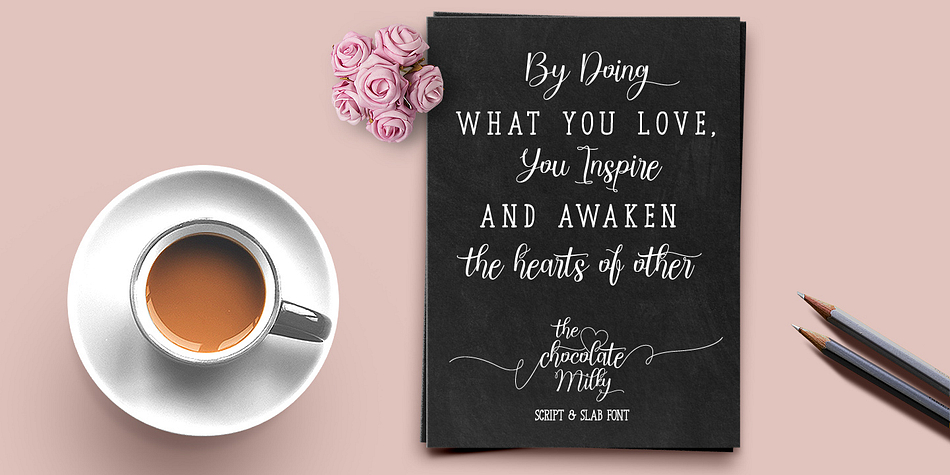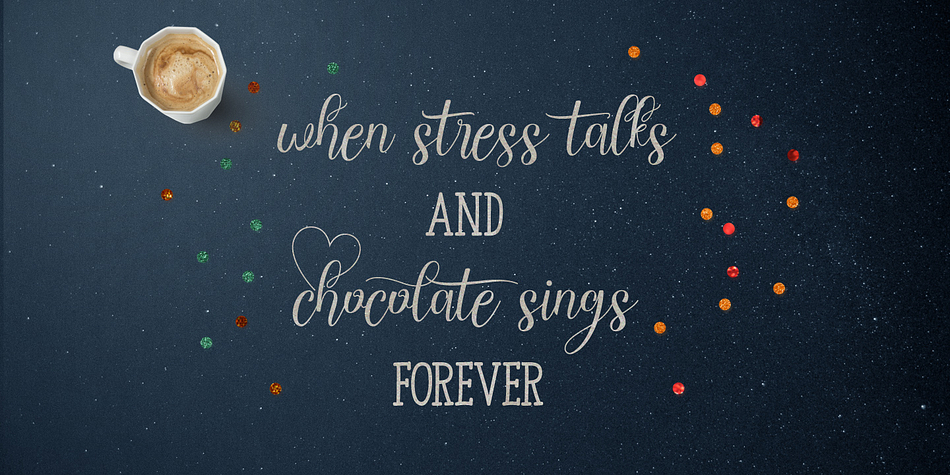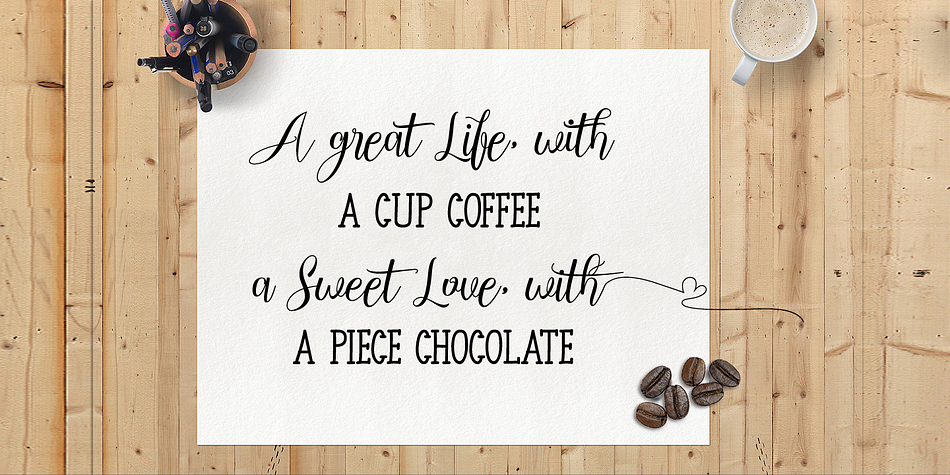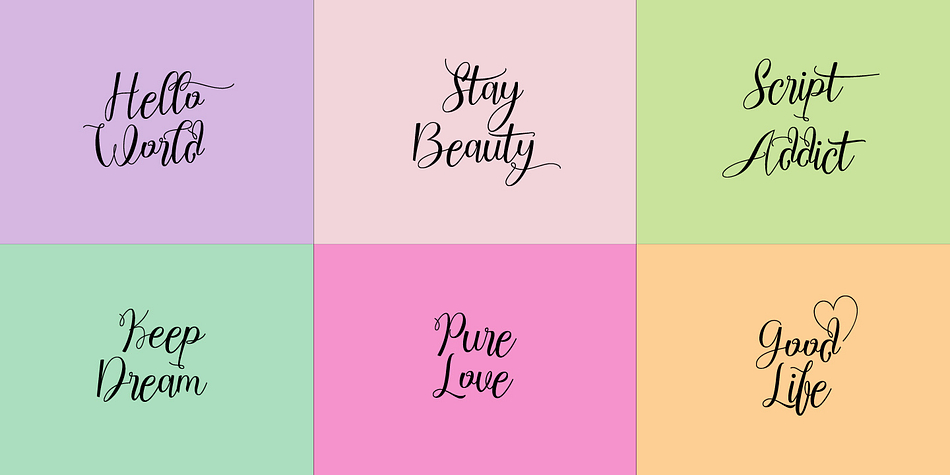
Chocolate Milky
Chocolate Milky is a dingbat, display slab and modern calligraphy font family. This typeface has three styles and was published by feydesign.
Chocolate Milky is a modern calligraphy script style, with many extras ligature and alternates glyphs.
Suitable for design, element design, wedding, event, t-shirt, logo, badges, sticker, and awesome work, etc…